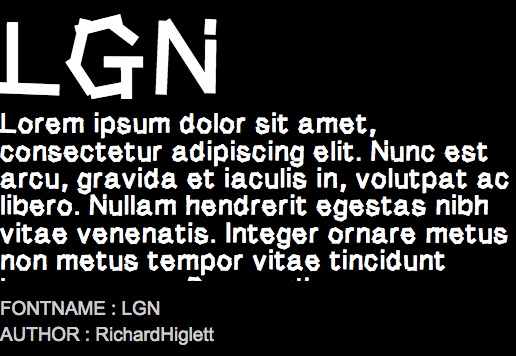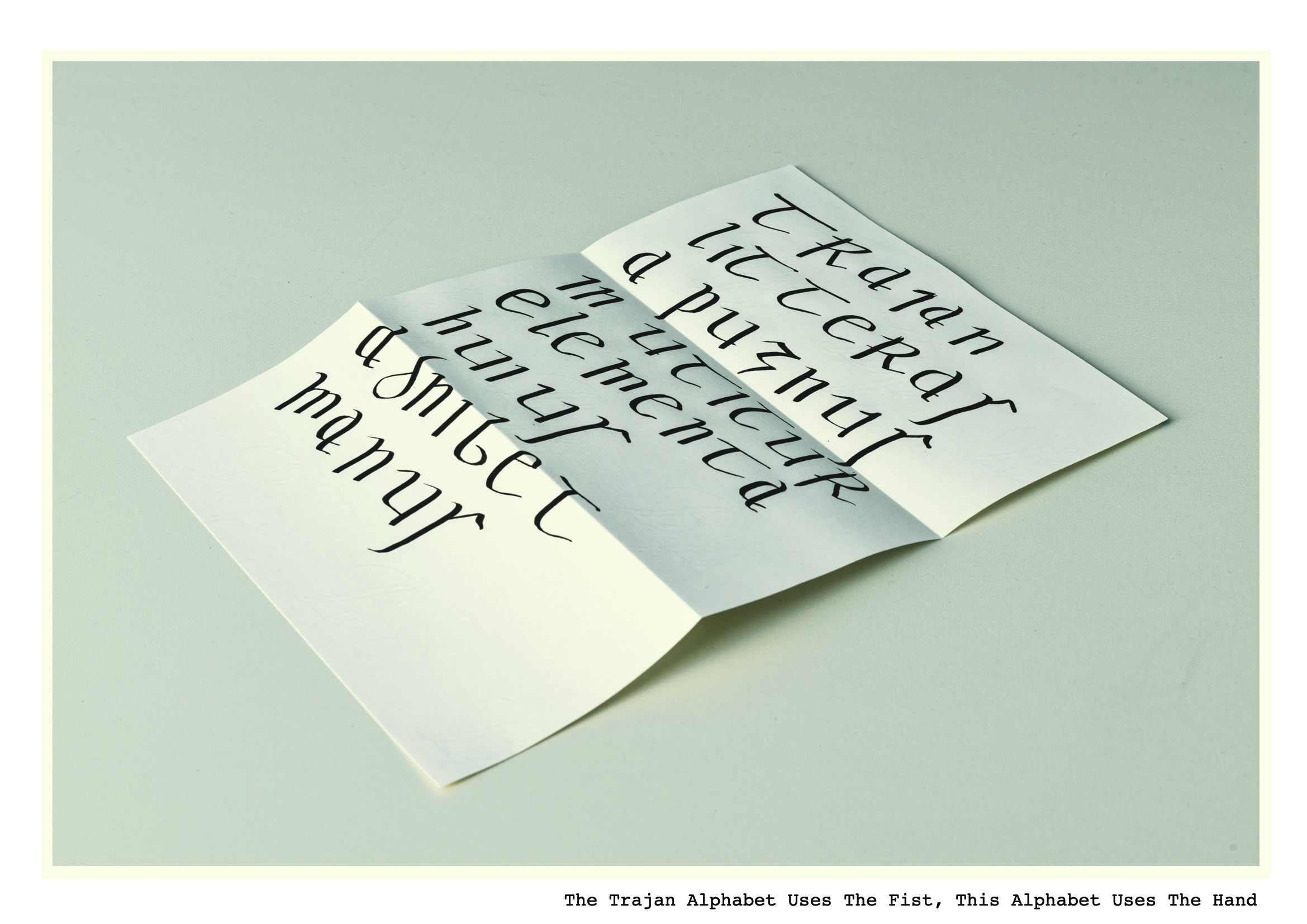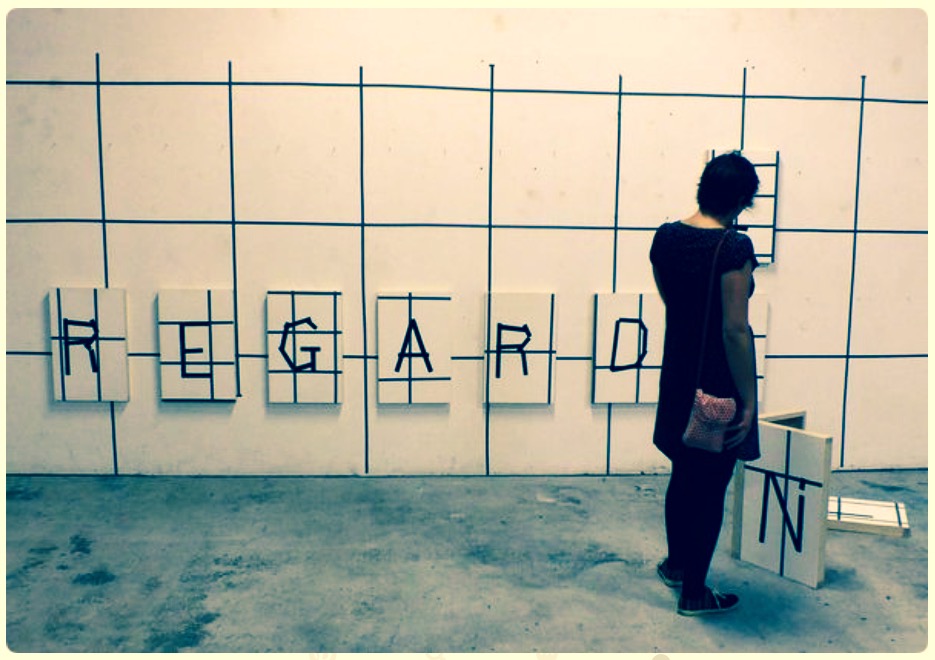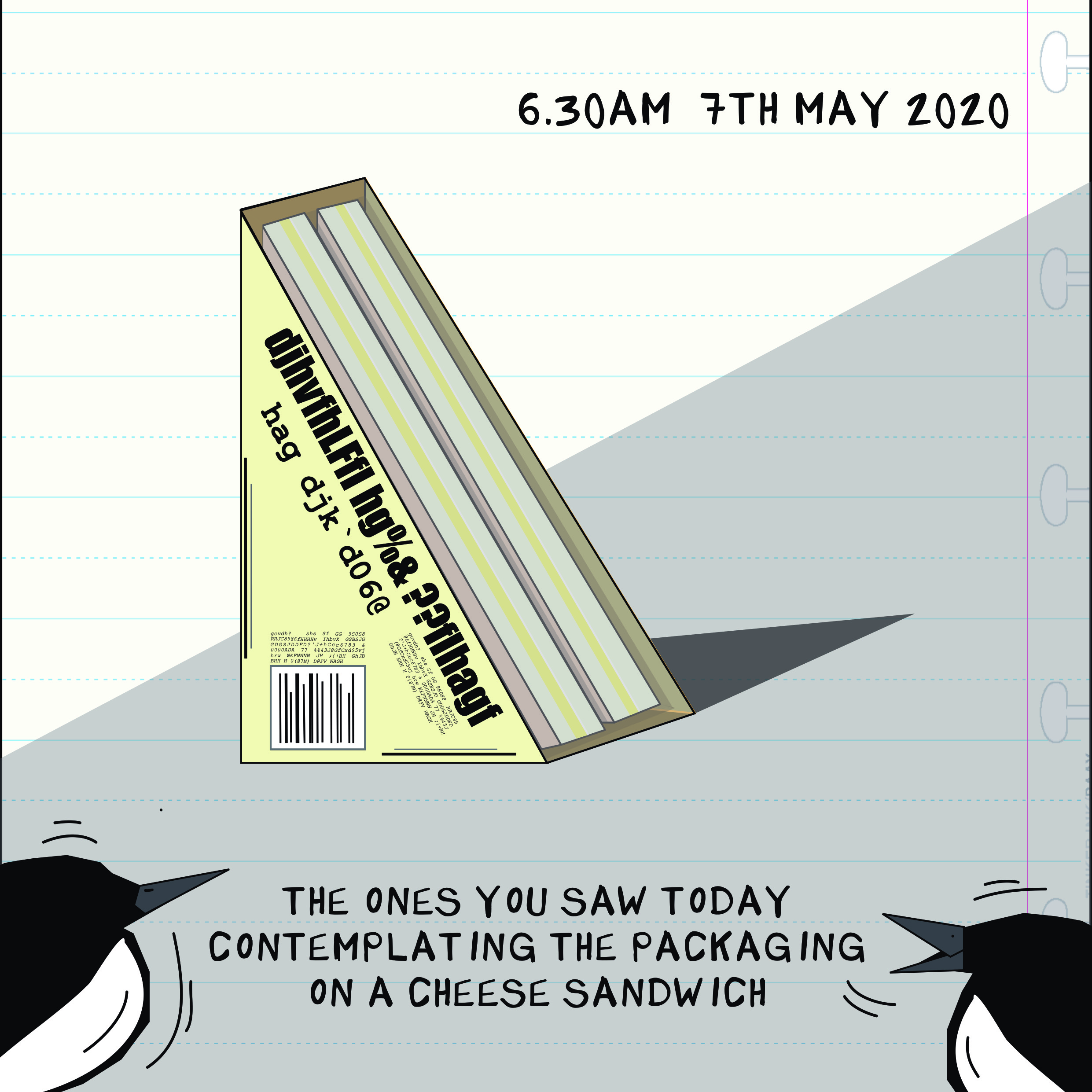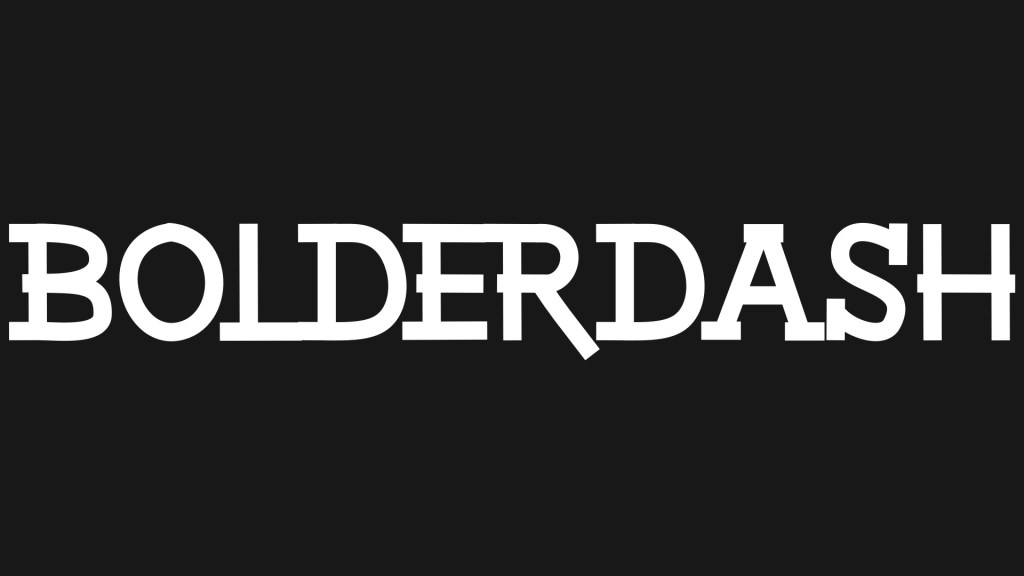
LGN Millefleuilles 2017
LGN Typface
Created from pieces of masking tape during a residency in Nantes, France. Creative Commons License. Donation for use appreciated: Suggest £2.00 to download from link. X
teilo typeface
Teilo is a digital remake of what is considered to be the first example of Welsh handwriting from the 9th Century. While free to download through like below as a Creative Commons license, a donation of £3 is suggested x
A series of Glyph Maps of 6 typefaces as editions is being developed. First in the series is teilo in an edition of 50 prints. For details click image.
teilo (lower case t) is a recreation of the writing of an unknown member of the church at Llandeilo, South Wales in the late 8th/early 9th Century AD (actual date not determined). It is significant is this handwriting sample known as the  ‘Surrexit Memorandum‘ which is written in a copy of the Gospels of St. Chad is believed to be the first example of written Welsh. Contact this site for more information.
the trajan alphabet uses the fist, this alphabet uses the hand
Le Degree was created for an installation at Chapter Arts Centre, Cardiff in 2015. It is a hybrid of hand-written and a typewriter font and is designed to be used as vinyl without need for a level as the letter angles varying. Contact this site for more information.
Farm Shop Typeface
Farm Shop is based on a hand painted sign on a country lane. From a documented image, the size of the paintbrush was estimated and this determined a rule for vertical and horizontal strokes. Featured in Farm Shop (2014)  at Oriel Myrddin Gallery , West Wales UK and Free Mountain as part of Cardiff Contemporary (2014). Contact this site for more information.
Full Stop is a ‘personal’ Full Stop which was created for insertion into a lecture paper on Game Play by Anna Powell 2015. Contact this site for more information.
Seen was a typeface based on masking tape. Gallery texts can be created with masking tape or electrical tape using this typeface as a guide. Contact this site for more information.
Ellipsis was a commission by the Glyn Vivian Gallery, Swansea for the Book Project 2016. It is created using letters written by a cross section of people involved in the re-development of the gallery from bricklayers to the director of the Glyn Vivian Gallery. Its intention was to be used on internal communications at the gallery a everyone became represented in the language of change. Contact this site for more information.
In Dust was created for After and Before and can be used to make marks and digitally age publications and on-line documents. Contact this site for more information.